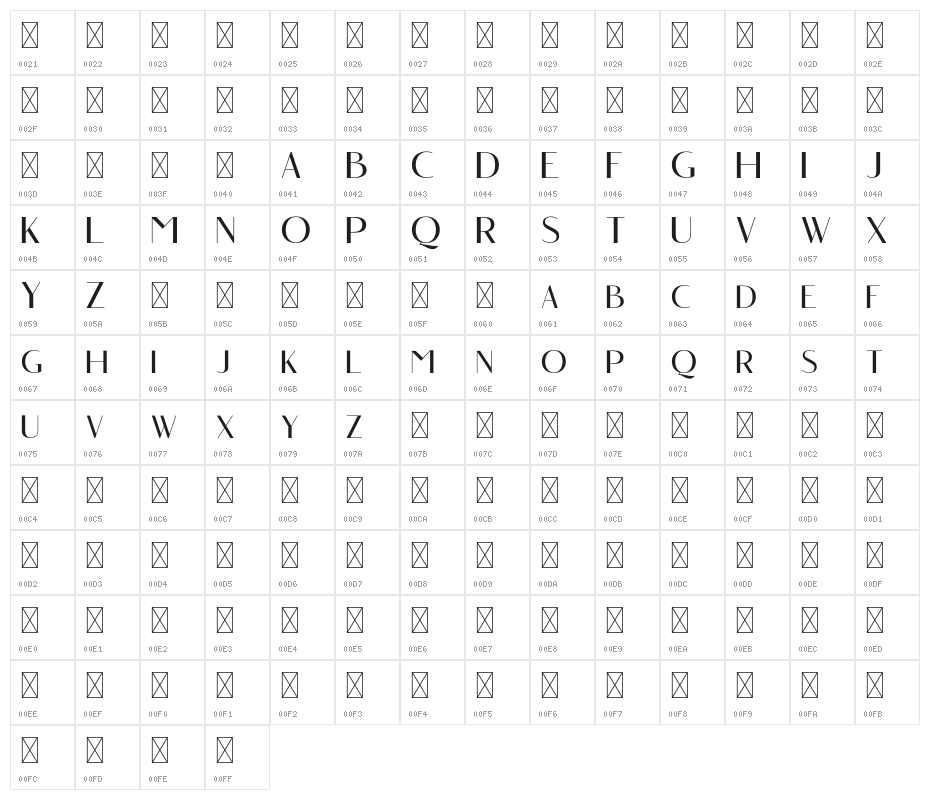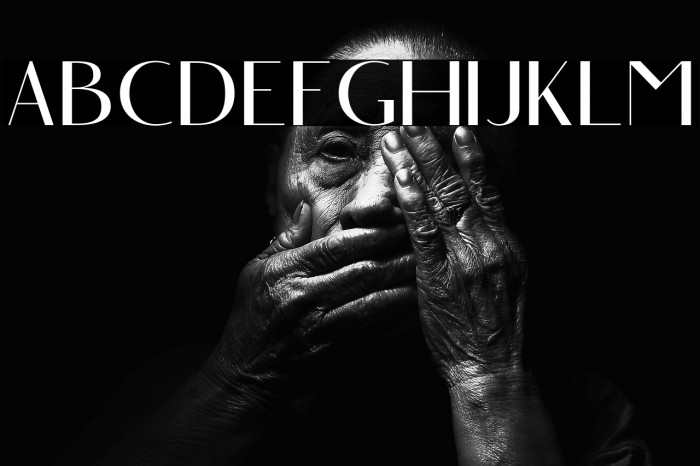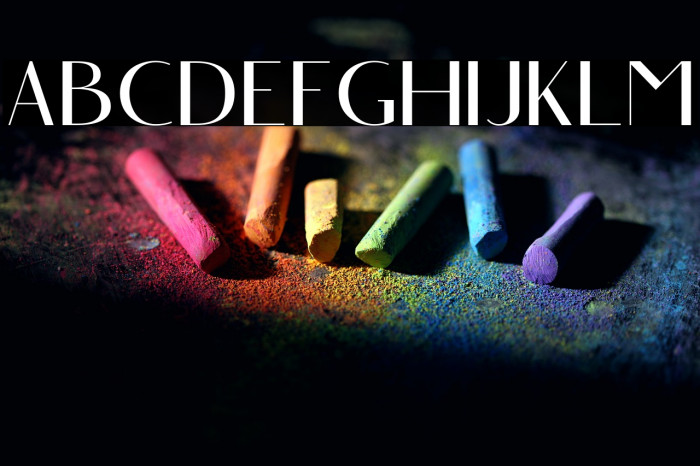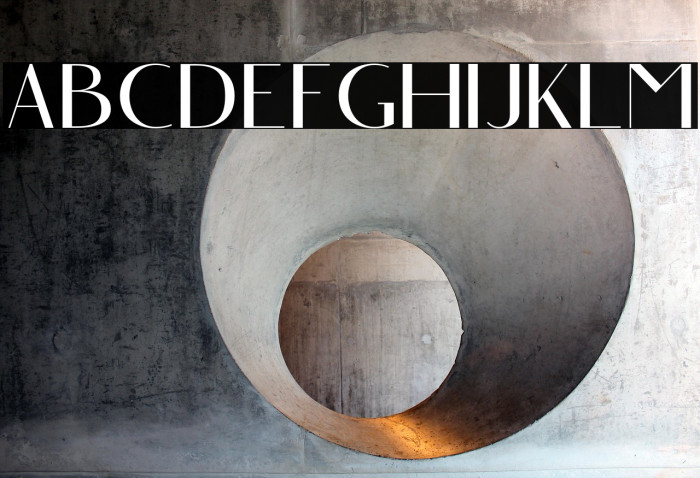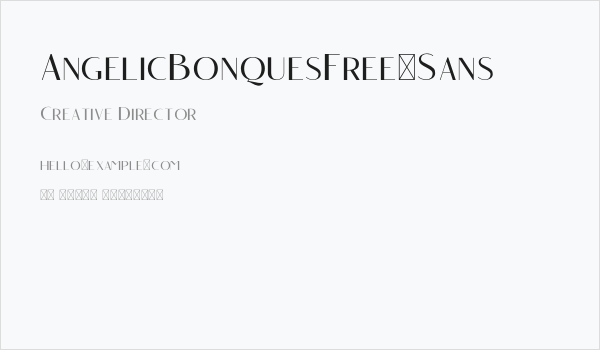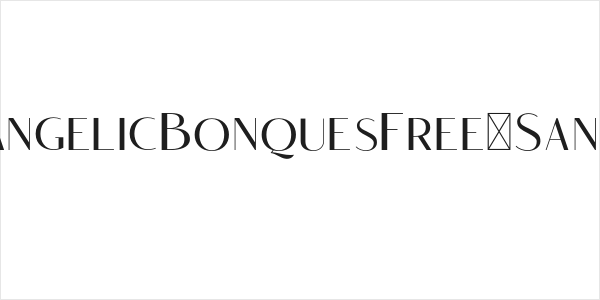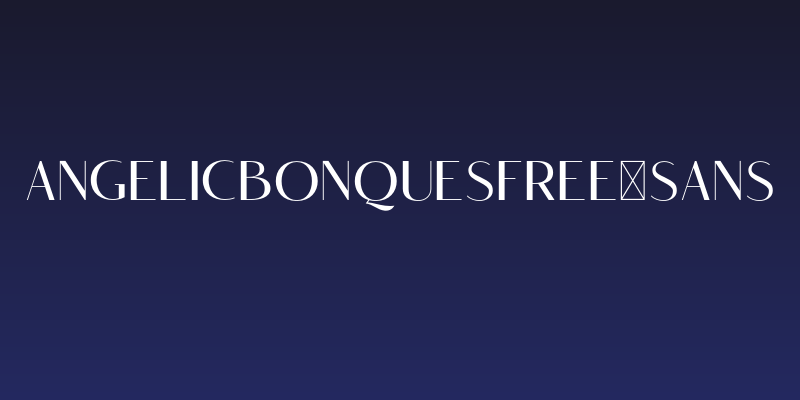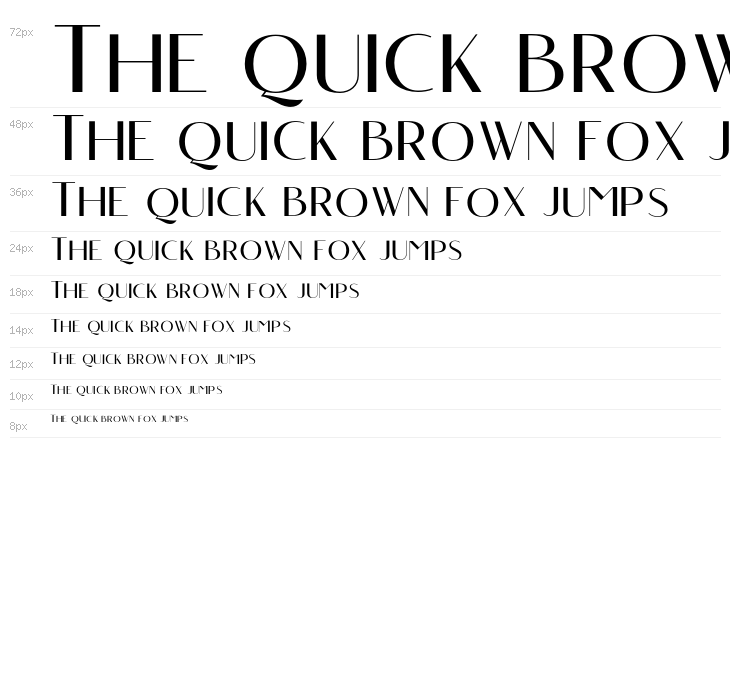
AngelicBonquesFree-Sans Font
AngelicBonquesFree-Sans Description
This font features a sleek and modern design with a sans-serif style. The characters are elegantly crafted with a mix of thin and thick strokes, providing a high contrast that enhances readability and visual appeal. The uppercase letters exhibit a sophisticated and clean look, while the lowercase letters maintain a consistent style. The numbers are clear and straightforward, making them suitable for various applications. Special characters are included, adding versatility to the font's use. Overall, the font exudes a contemporary and stylish vibe, making it ideal for modern design projects.